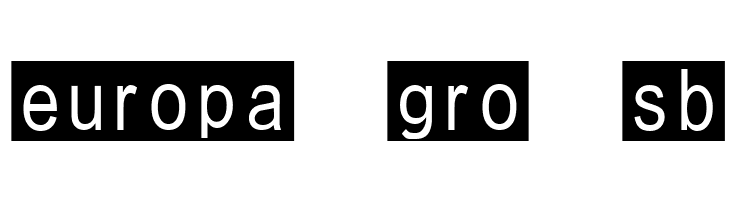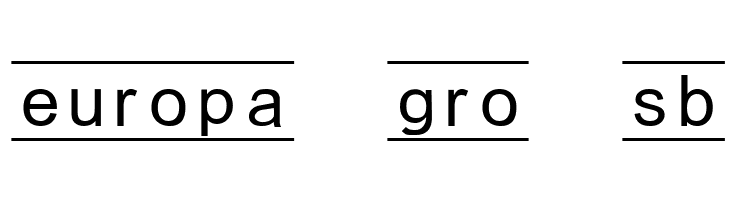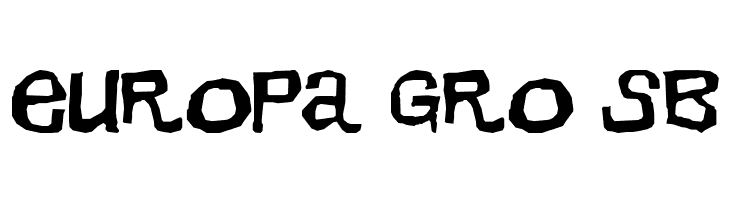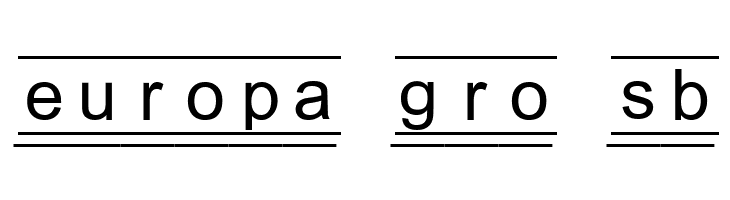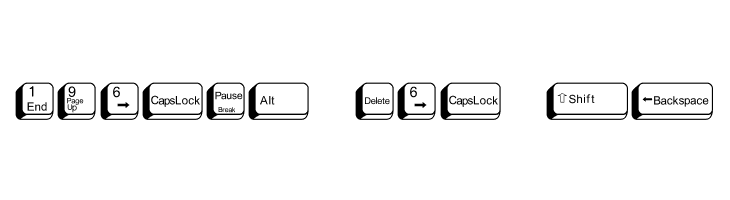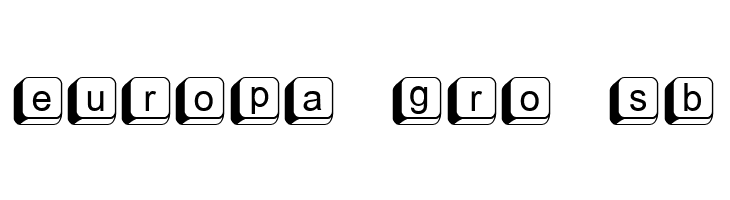
DirtDevil Font
A rugged, hand-drawn style font with a distressed, graffiti-like appearance.
FIBox Font
A modern, clean sans-serif font with uniform strokes and excellent readability.
FIBoxBB Font
A modern sans-serif font with clean lines and uniform stroke widths.
FIKey1 Font
A bold, 3D block-style font with shadow effects and square outlines.
FIKey2 Font
A bold, 3D keyboard keycap style font with a retro computer aesthetic.
FIKey3 Font
A modern, geometric sans-serif font with clean lines and high legibility.
Sahara-Normal Hollow Font
A decorative hollow script font with elegant loops and curves.